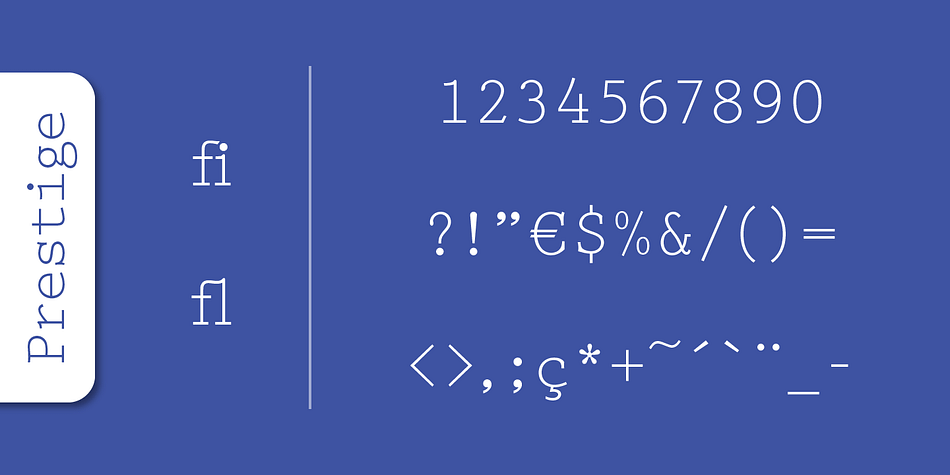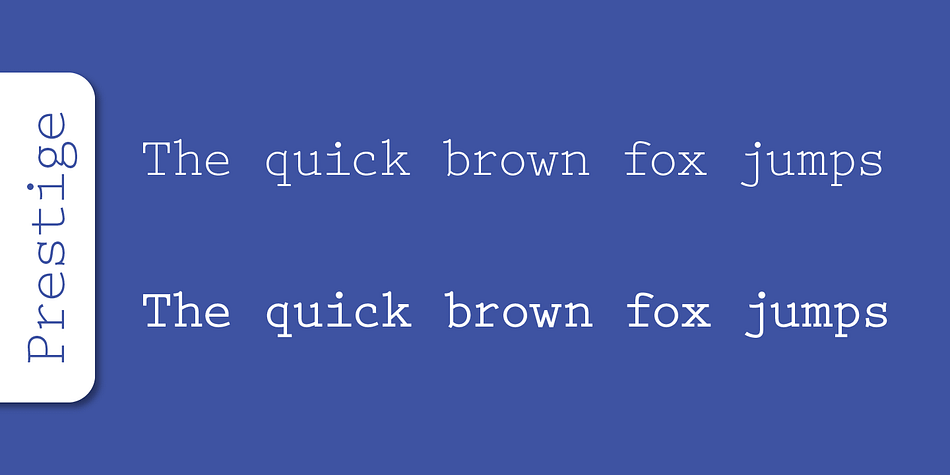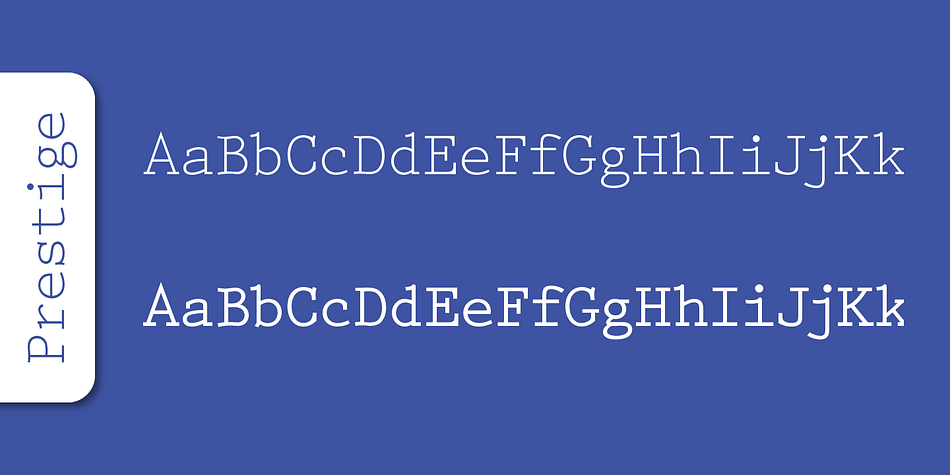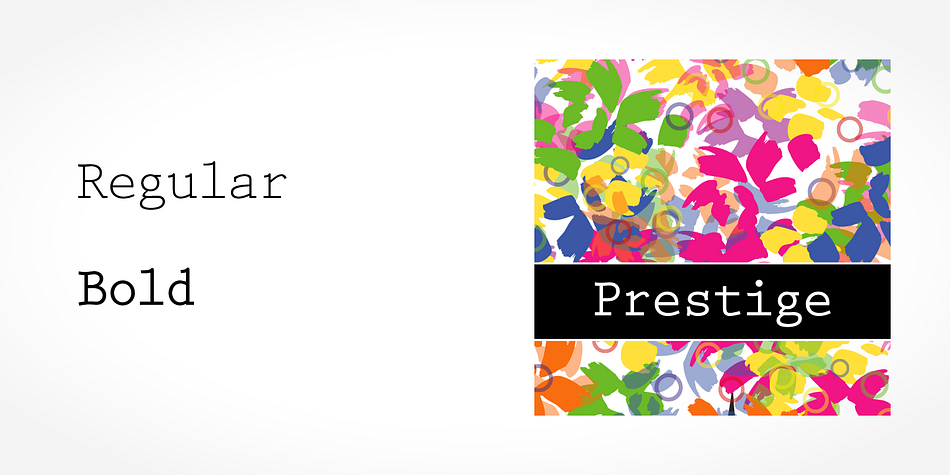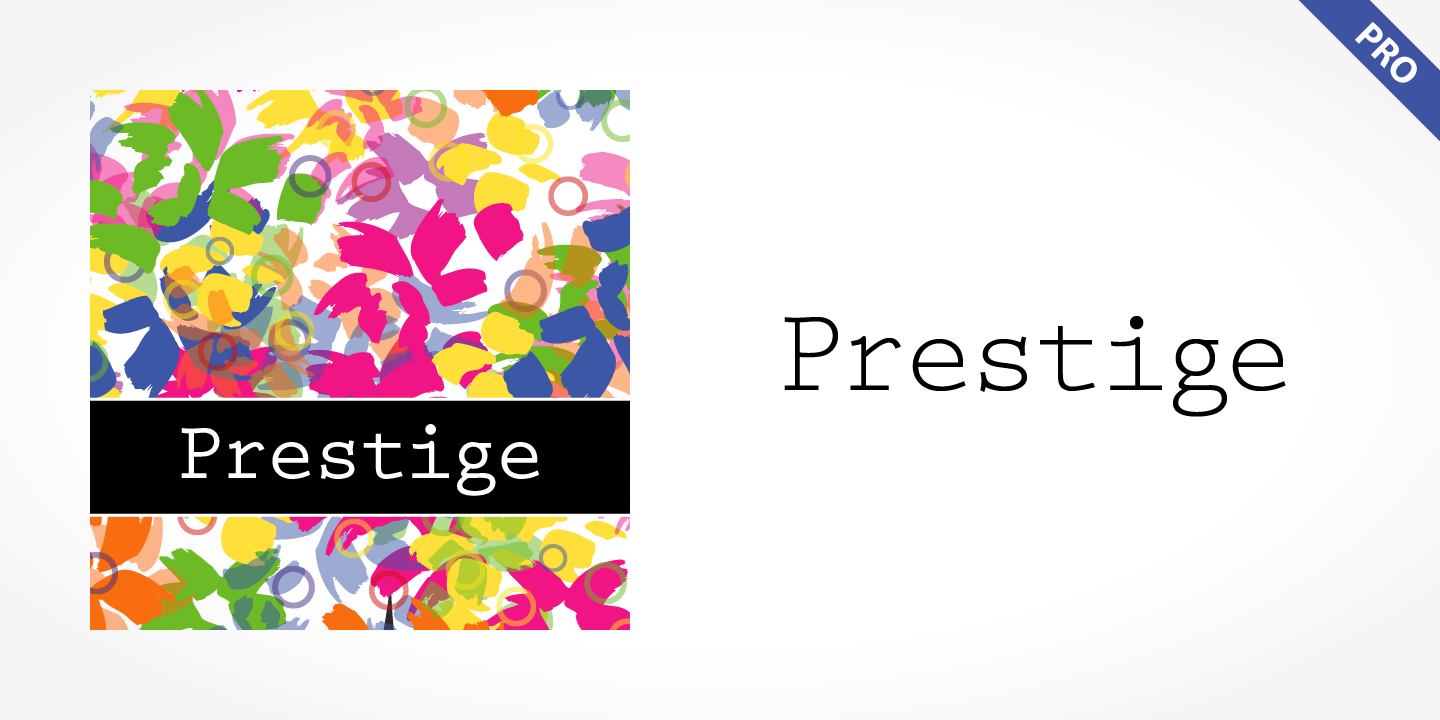
Prestige Pro
Prestige Pro is a typewriter font family. This typeface has two styles and was published by SoftMaker.
Prestige Pro is a word processor face which offers a clear and monospaced type. The slanted versions have kept the same design as the roman font. Prestige Pro is easy to read, even in small sizes, and is useful for tabular material with narrow columns, such as directories and lists.